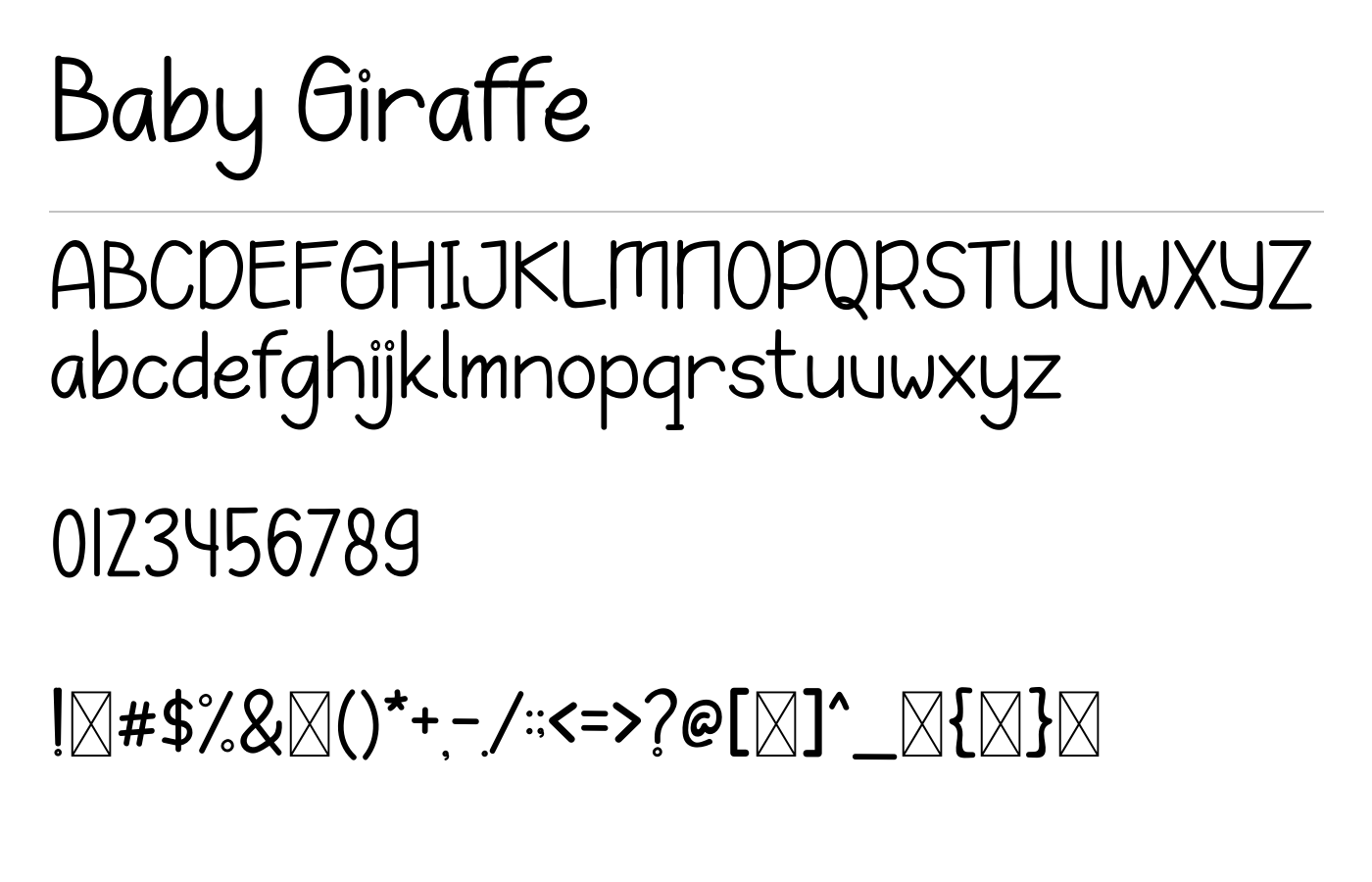
Baby Giraffe is a playful sans serif font with a casual, hand-drawn feel, featuring a light weight and tall, narrow letterforms. Its rounded shapes and simple strokes give it a friendly and approachable personality, making it perfect for children's books, informal branding, and fun, creative projects. This font works best in headlines or short texts where a warm, inviting tone is desired.
Baby Giraffe Font
About Baby Giraffe Font